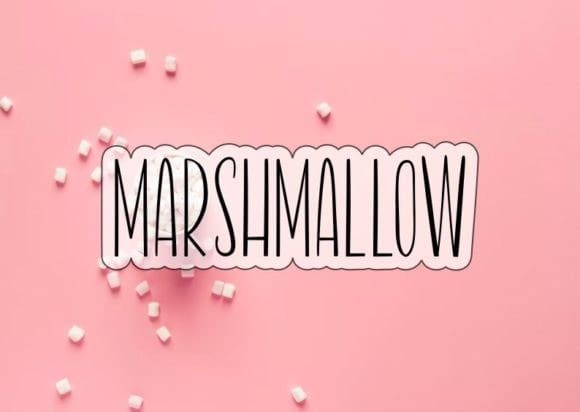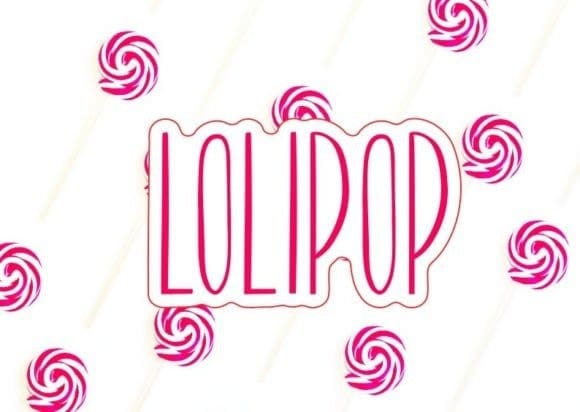
Note Christmas Font
Note Christmas is a fun and charming handwritten font. Whimsical and a bit quirky, this font will brighten up each of your designs. Add it confidently to your projects, and you will love the results.